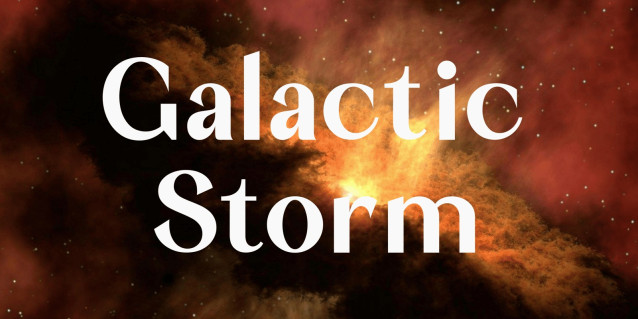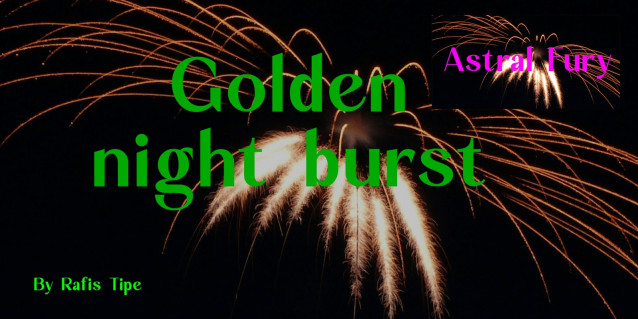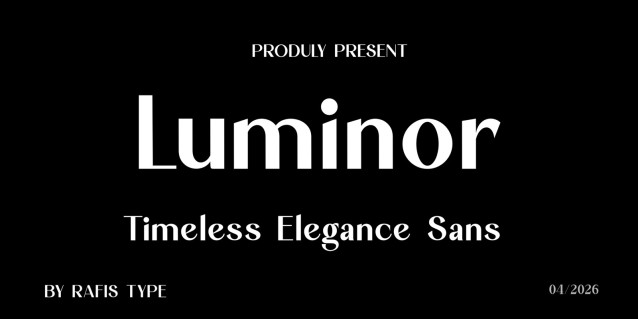
Luminor Font
Luminor Font is a stylish display typeface designed with a modern and elegant character. Its clean shapes and strong presence make it perfect for branding, logos, posters, editorials, and creative design projects. is a modern serif typeface with a touch of classic elegance. Its smooth curves and balanced shapes create a refined and timeless look, perfect for branding, logos, editorials, and luxury design projects.